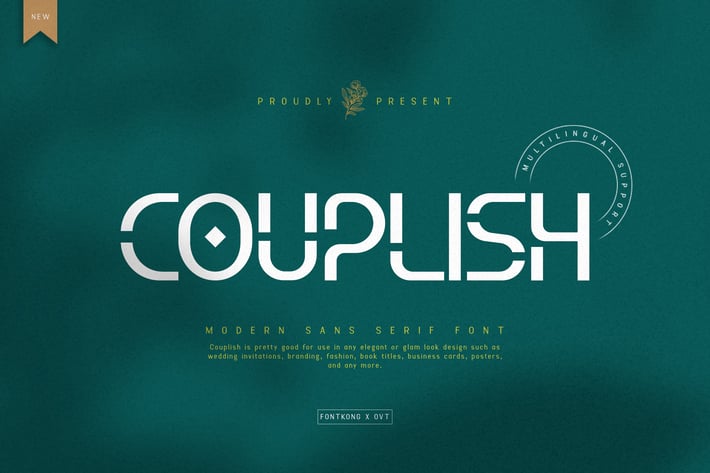
Couplish - Modern Sans Serif Font
Introducing "Couplish," a modern sans serif font that embodies sleek simplicity and timeless sophistication. With its clean lines and balanced proportions, Couplish is the perfect choice for designers seeking a versatile typeface that effortlessly elevates their projects.
Crafted with attention to detail, Couplish offers a contemporary twist on classic sans serif typography. Its minimalist design ensures clarity and readability across various applications, from branding and advertising to editorial layouts and web design.
With multiple weights and styles to choose from, Couplish provides flexibility and adaptability for any design endeavor. Whether you're creating a sleek logo, elegant headlines, or stylish signage, this font delivers a polished and professional look every time.
Embrace the power of modern simplicity with Couplish and let your designs shine with sophistication.